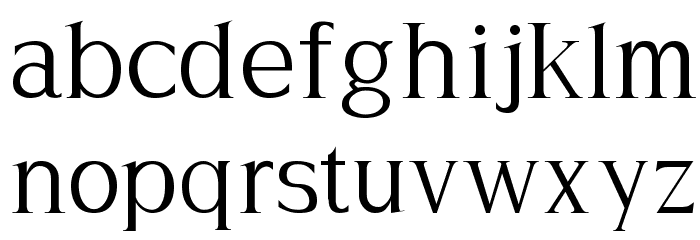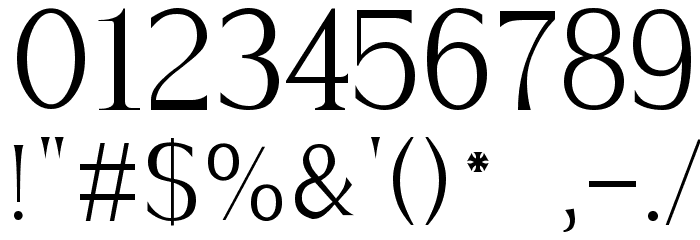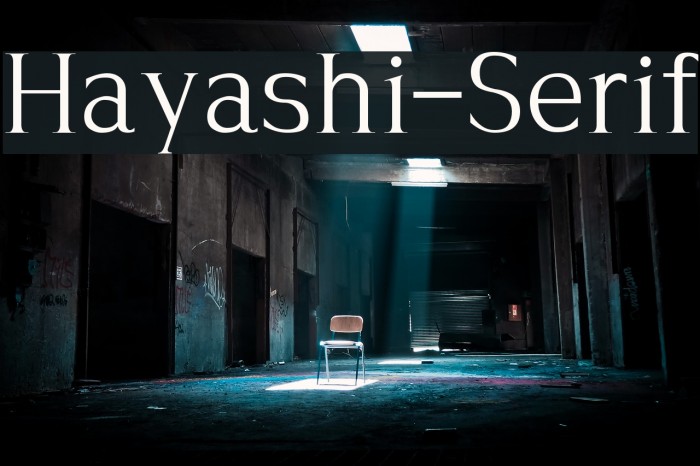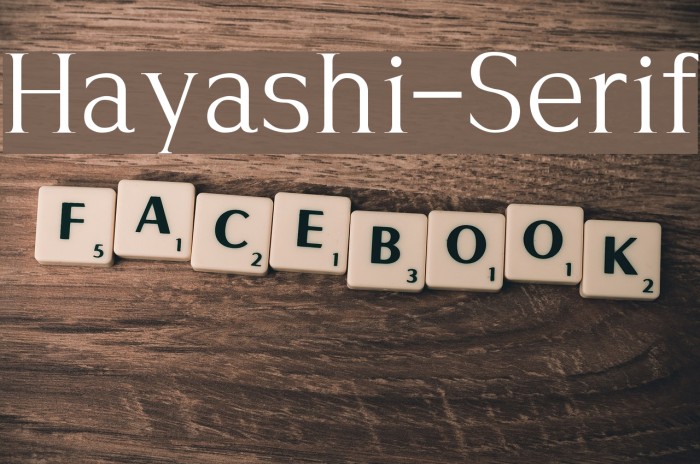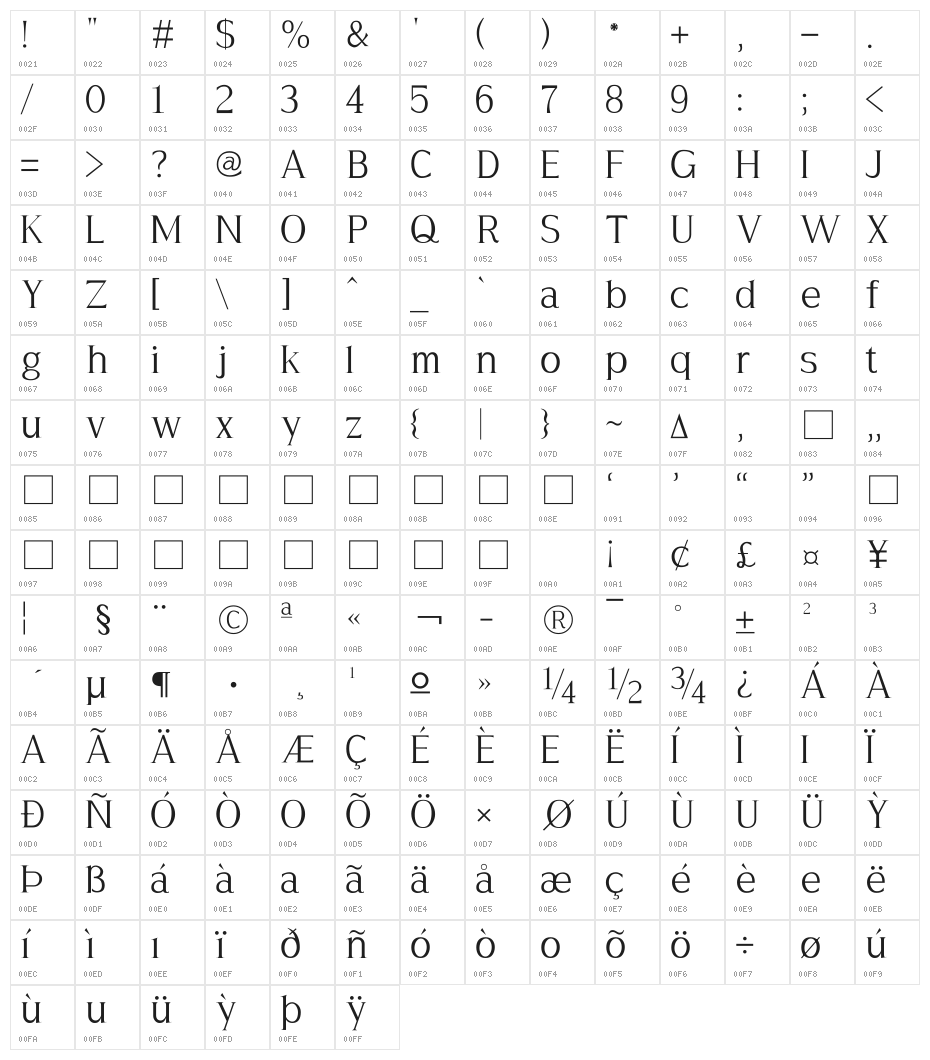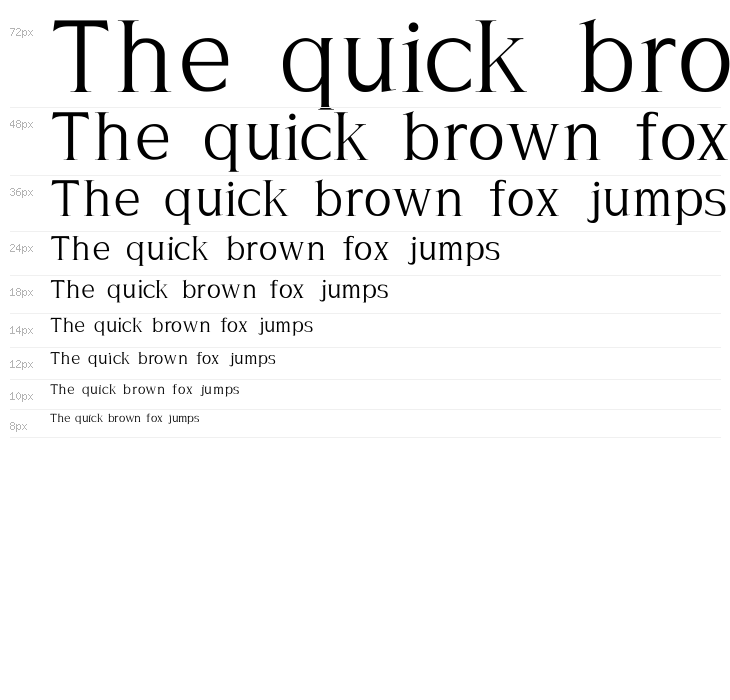
Hayashi-Serif Font
This font exhibits a classic serif style with elegant and refined strokes. The serifs are pronounced, adding a touch of sophistication and tradition. The uppercase letters are well-proportioned, with a slight contrast between thick and thin strokes, giving it a timeless appeal. The lowercase letters maintain a consistent style, with rounded edges that soften the overall appearance. The numerals are clear and legible, making them suitable for various applications. Special characters are designed with the same attention to detail, ensuring consistency throughout the font.
A classic serif font with elegant strokes and pronounced serifs.
- Proposed Projects: Ideal for editorial design, book covers, formal invitations, and branding projects that require a touch of elegance.
- Category: Serif
- Overall Style: Classic